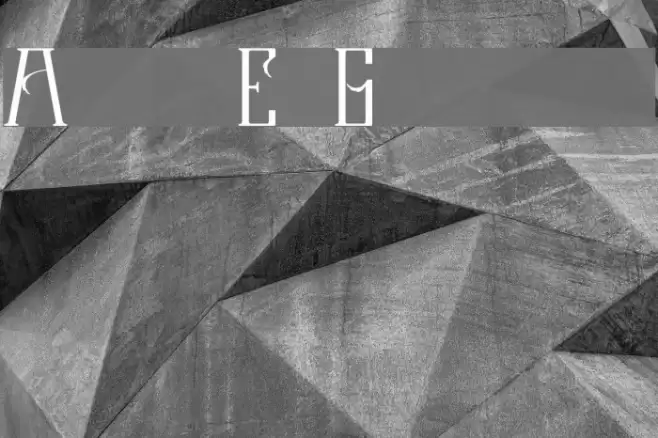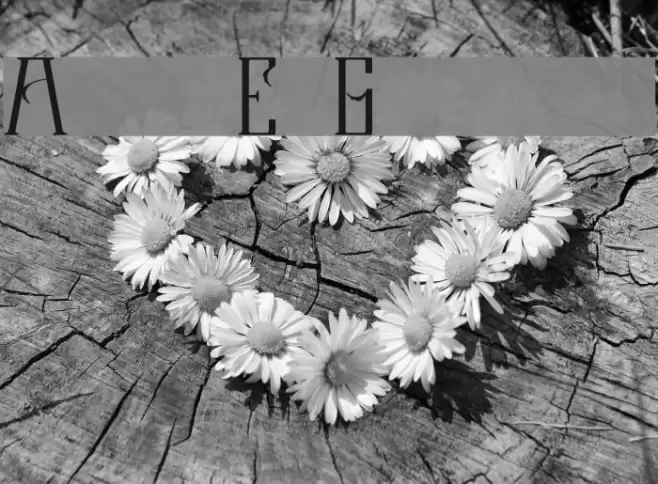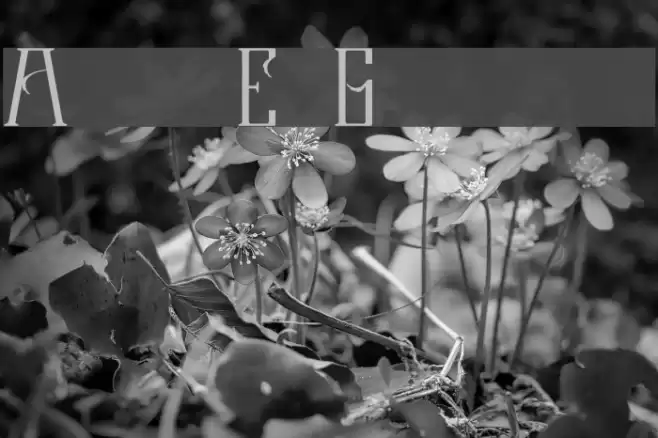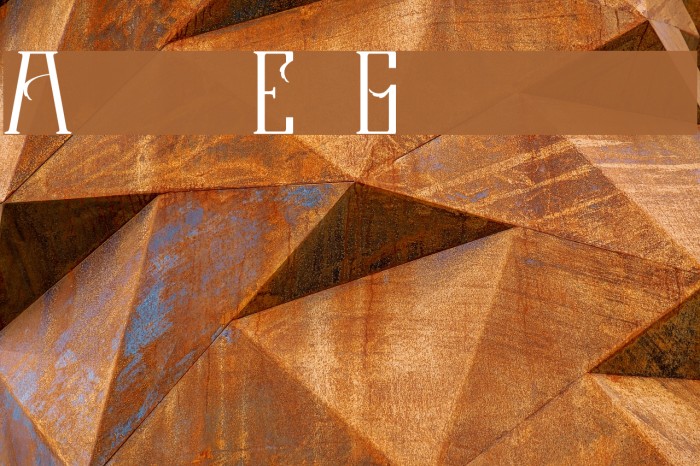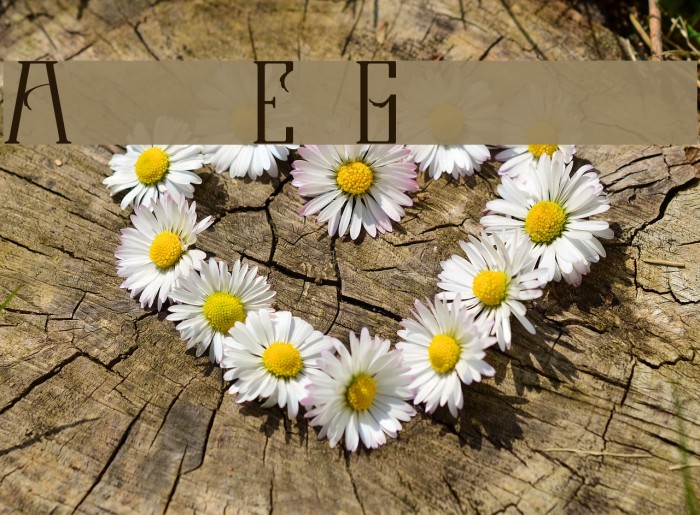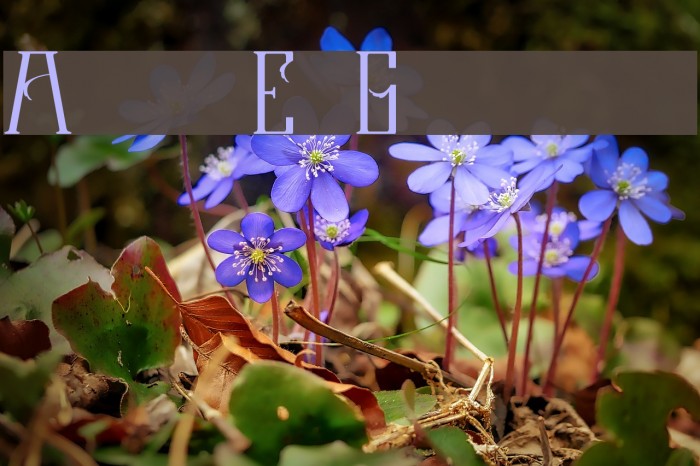
Garner Font
Garner Description
This font features a unique and artistic design with a decorative flair. Each character is crafted with intricate details, incorporating sharp edges and elegant curves that give it a distinct personality. The uppercase letters have a strong presence, with exaggerated serifs and a slightly condensed form. The lowercase letters maintain the decorative theme, offering a harmonious blend of style and readability. The overall appearance is both sophisticated and eye-catching, making it suitable for creative and expressive projects.
A decorative and artistic font with intricate details and elegant curves from Uncategorized fonts.
- Proposed Projects: Ideal for branding, poster design, invitations, and any project requiring a touch of elegance and creativity.